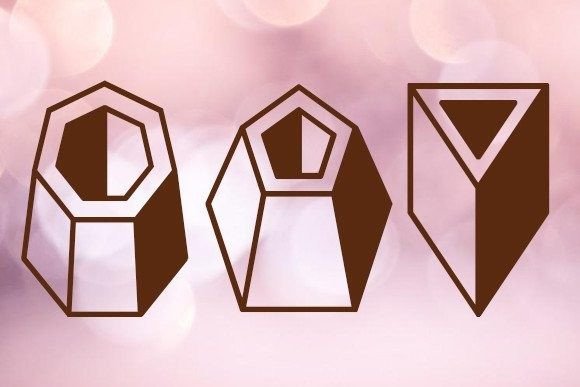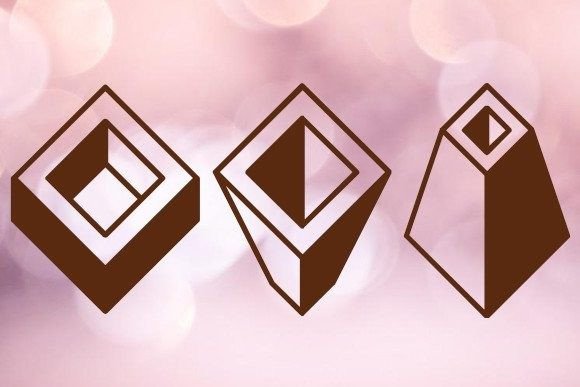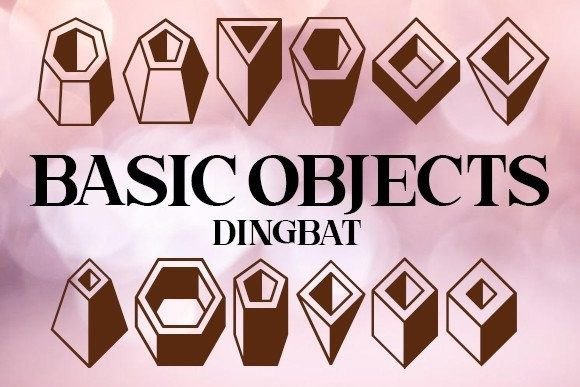
Discover the Versatility of Basic Objects Font: Elevate Your Art with Stunning Dingbats
Are you a designer, crafter, or artist looking for a unique and versatile font to enhance your creative projects? Look no further than the Basic Objects font, a superb dingbat that is sure to leave a lasting impression. In this article, we’ll explore the features and benefits of Basic Objects, and show you how to make the most of this amazing font in your art, flyers, shirts, and more.
What is Basic Objects Font?
Basic Objects is a dingbat font that features a collection of simple yet striking icons, shapes, and objects. Unlike traditional fonts, dingbats are symbol-based fonts that can add a touch of personality and whimsy to your designs. The Basic Objects font is carefully crafted to provide a wide range of objects, from everyday items to abstract shapes, making it an ideal choice for various creative projects.
Key Features of Basic Objects Font
• Unique and Versatile: Basic Objects offers a diverse range of icons and shapes that can be used in various contexts, from art and design to crafting and DIY projects.
• Easily Customizable: The font is highly customizable, allowing you to adjust the size, color, and style to fit your project’s needs.
• High-Quality Design: Each icon and shape is carefully designed to ensure crisp and clean lines, making it perfect for printing and digital use.
• Wide Range of Applications: Use Basic Objects on flyers, shirts, posters, social media graphics, and more to add a touch of personality to your designs.
How to Use Basic Objects Font in Your Designs
Using Basic Objects in your designs is easy and straightforward. Here are some ideas to get you started:
Flyers and Brochures
Add a pop of personality to your flyers and brochures with Basic Objects. Use the icons and shapes to highlight important information, illustrate key points, or simply add visual interest to your design.
T-Shirts and Apparel
Take your t-shirt designs to the next level with Basic Objects. The font’s bold and striking icons are perfect for creating eye-catching designs that will stand out on any type of apparel.
Art and Illustration
Basic Objects can be used to create stunning art pieces, from abstract compositions to illustrative designs. Experiment with different icons and shapes to create unique and thought-provoking art.
Crafting and DIY Projects
Crafters and DIY enthusiasts will love using Basic Objects to add a personal touch to their projects. Use the font to create custom signs, decorate journals, or add embellishments to your crafts.
Tips and Tricks for Getting the Most out of Basic Objects
Here are some tips and tricks to help you make the most of Basic Objects:
• Experiment with Different Sizes and Colors: Don’t be afraid to try out different sizes and colors to see what works best for your design.
• Combine with Other Fonts: Basic Objects can be paired with other fonts to create visually interesting and dynamic designs.
• Use as a Design Element: Use Basic Objects as a design element to add texture and interest to your designs.
Author vladimirnikolic
Basic Objects is a versatile and stunning dingbat font that can elevate your art, designs, and creative projects to the next level. With its unique and customizable features, this font is perfect for designers, crafters, and artists looking to add a touch of personality to their work. So why wait? Download Basic Objects today and start creating amazing designs that will leave a lasting impression!